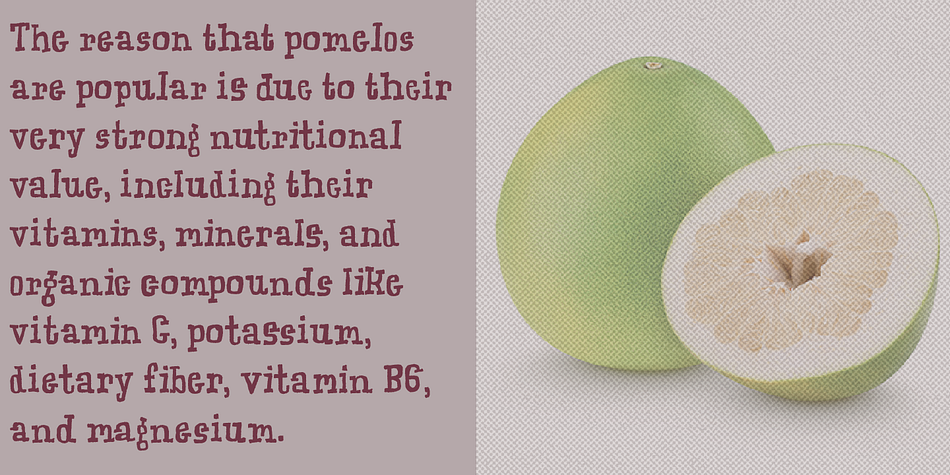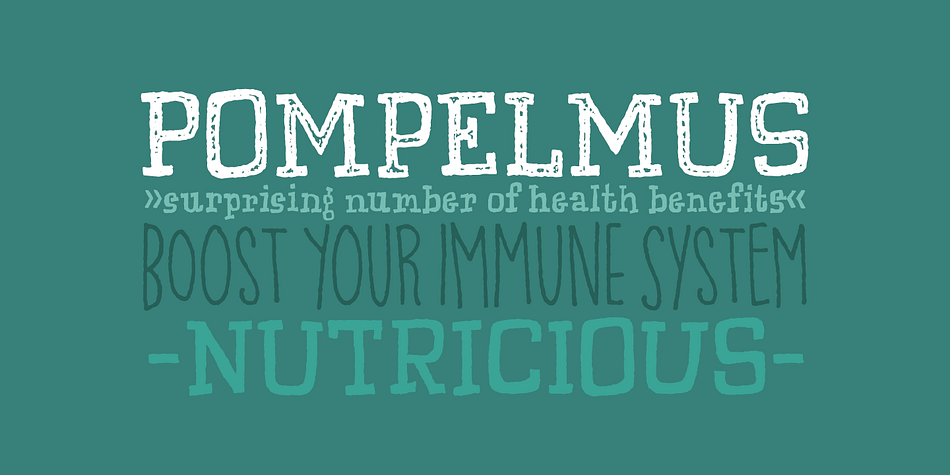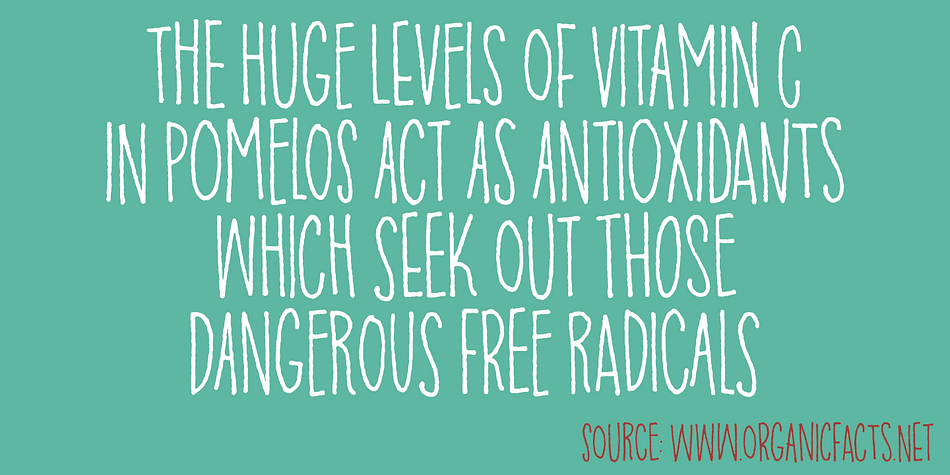
Pompelmus is a hand display and kids font family. This typeface has five styles and was published by Pizzadude.dk.
Comes in 5 different healthy versions:
Crispy: ALL CAPS crispy letters
Nutricious: “clean” version of Crispy
Fiber: The messy inside of Crispy
Healthy: Rough serif font
Sweet: Handwritten and crunchy